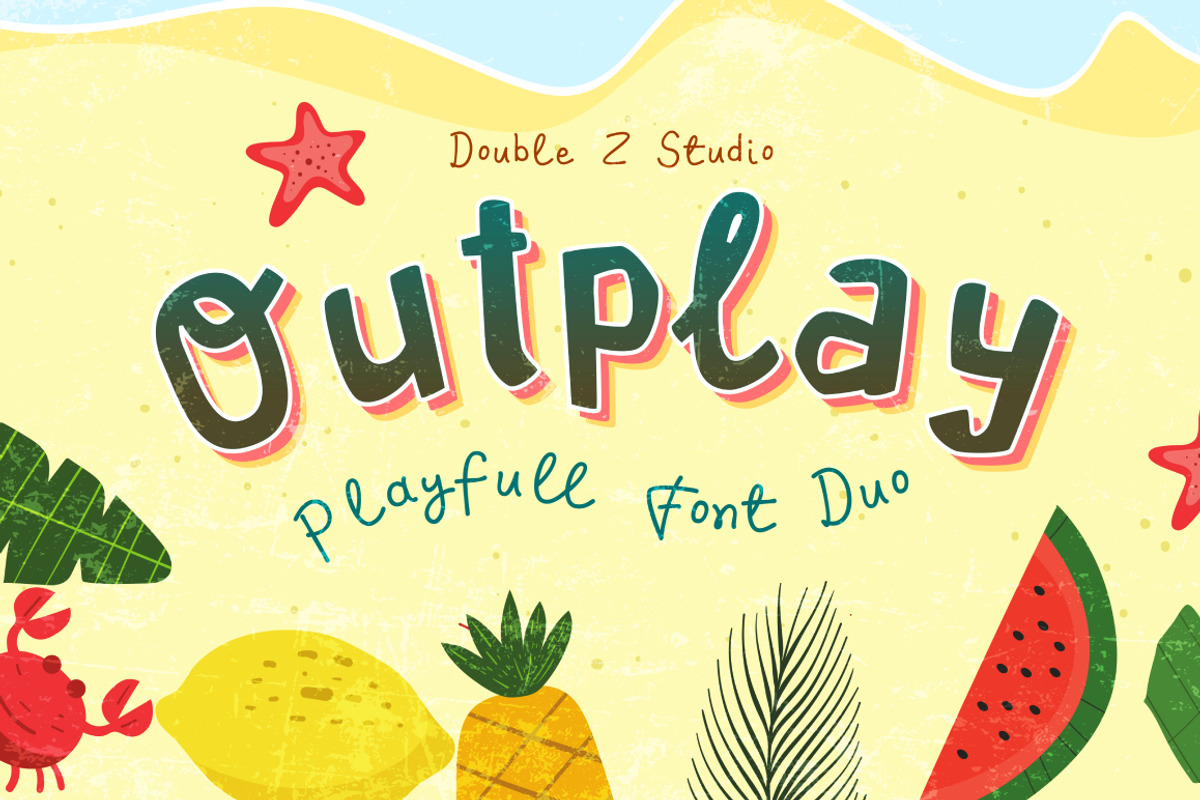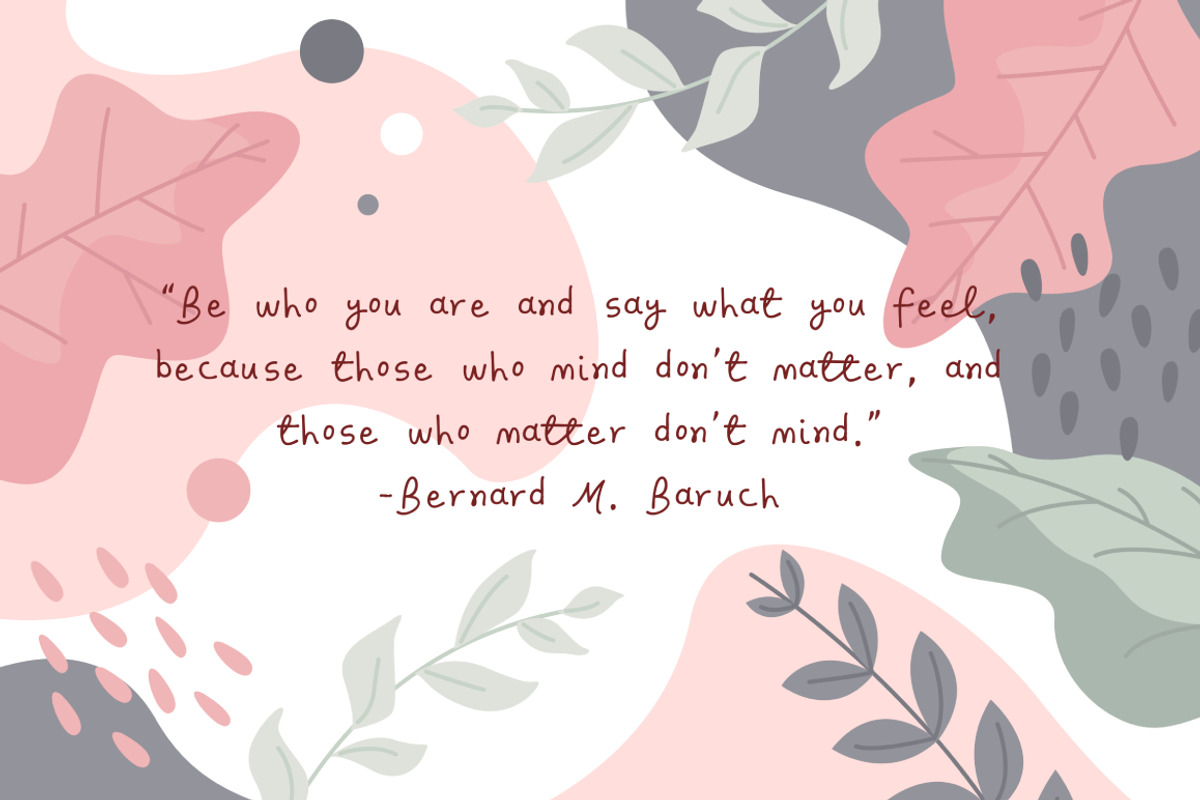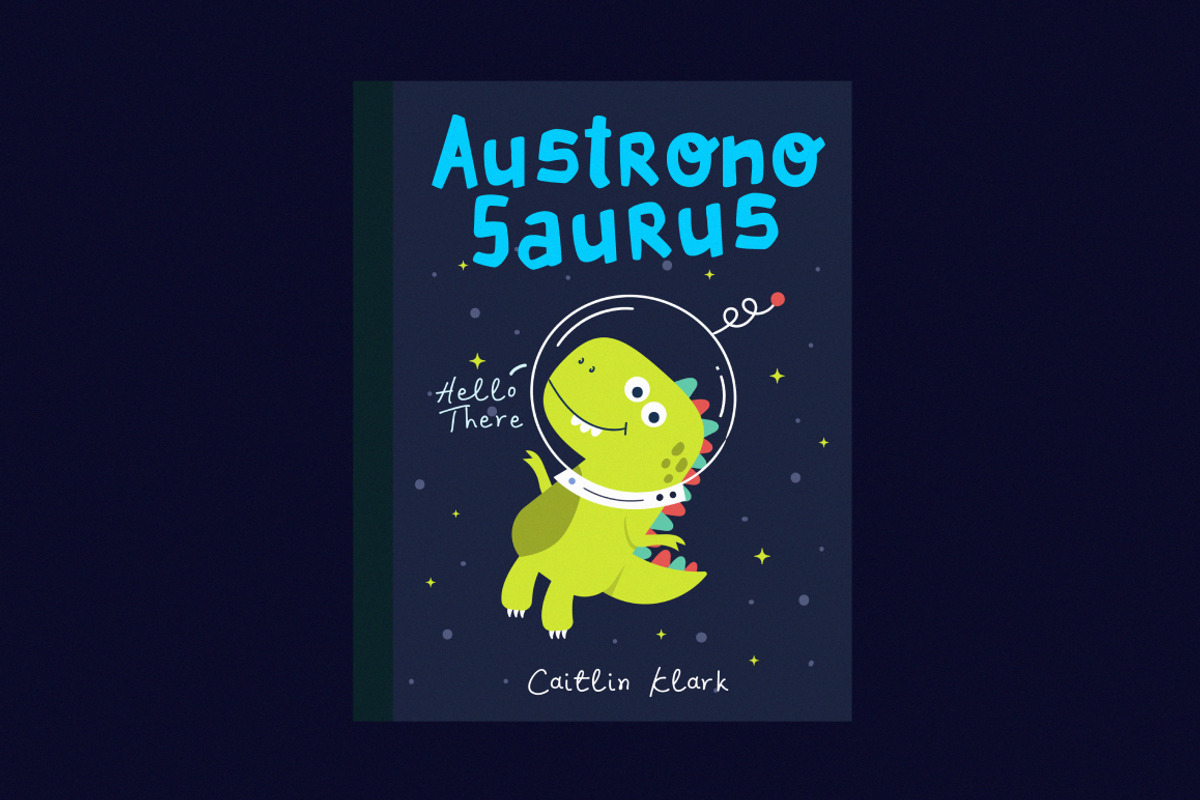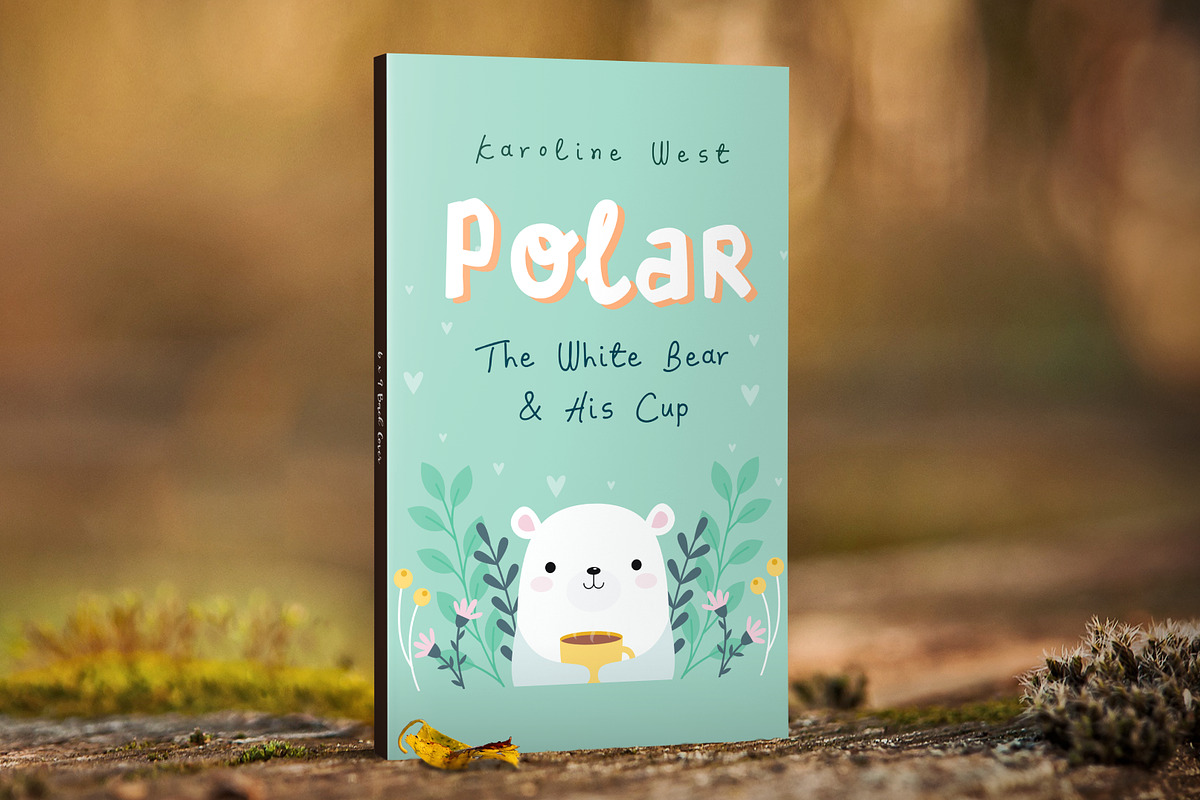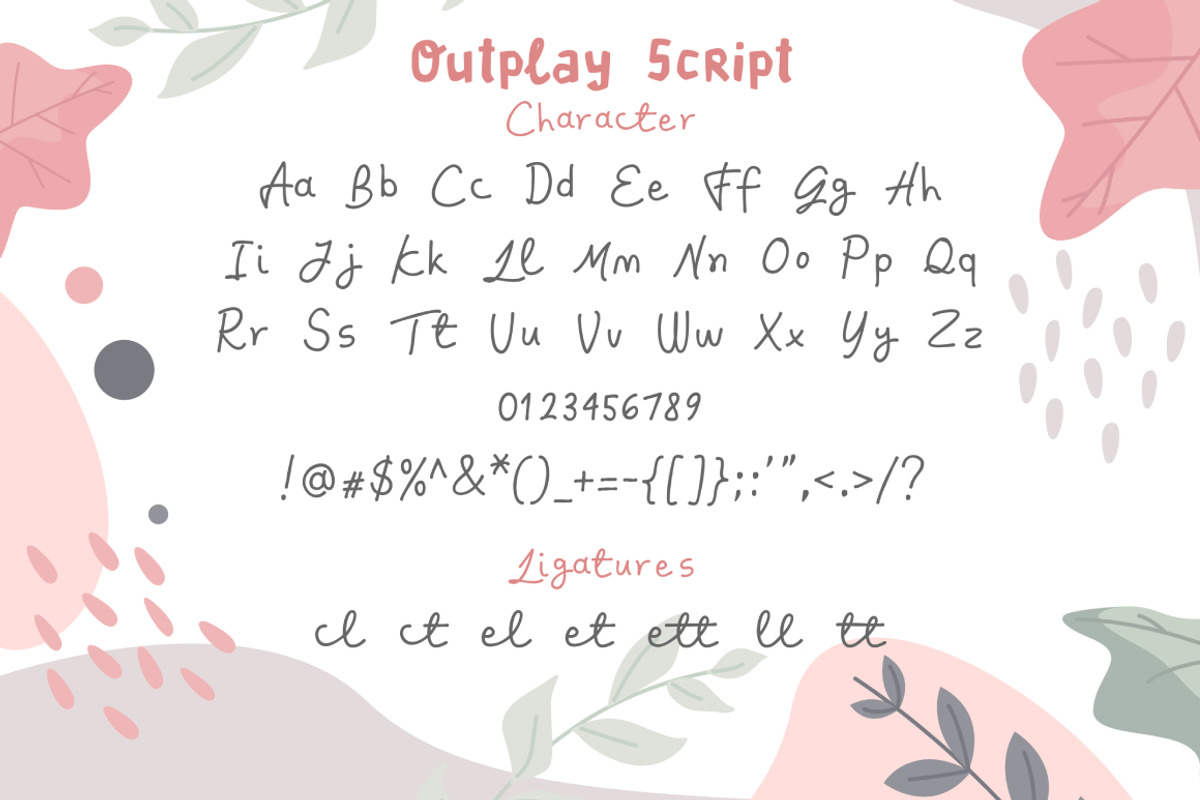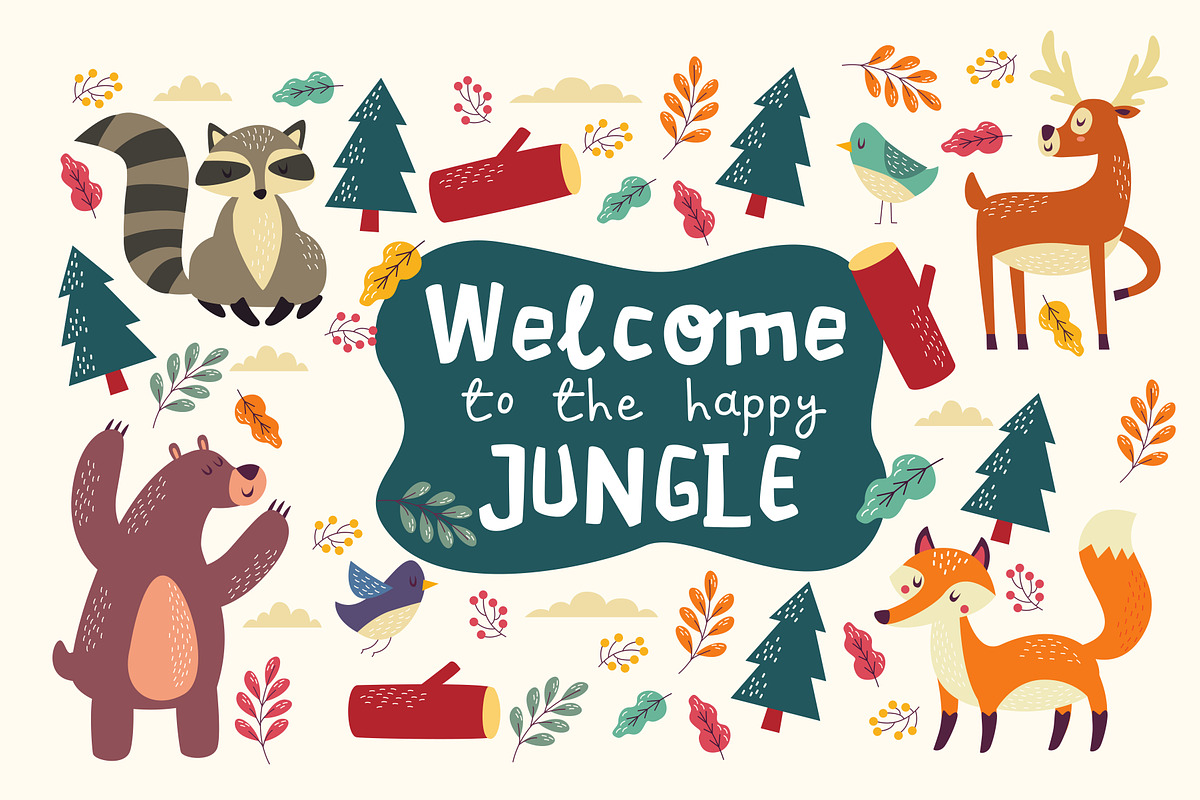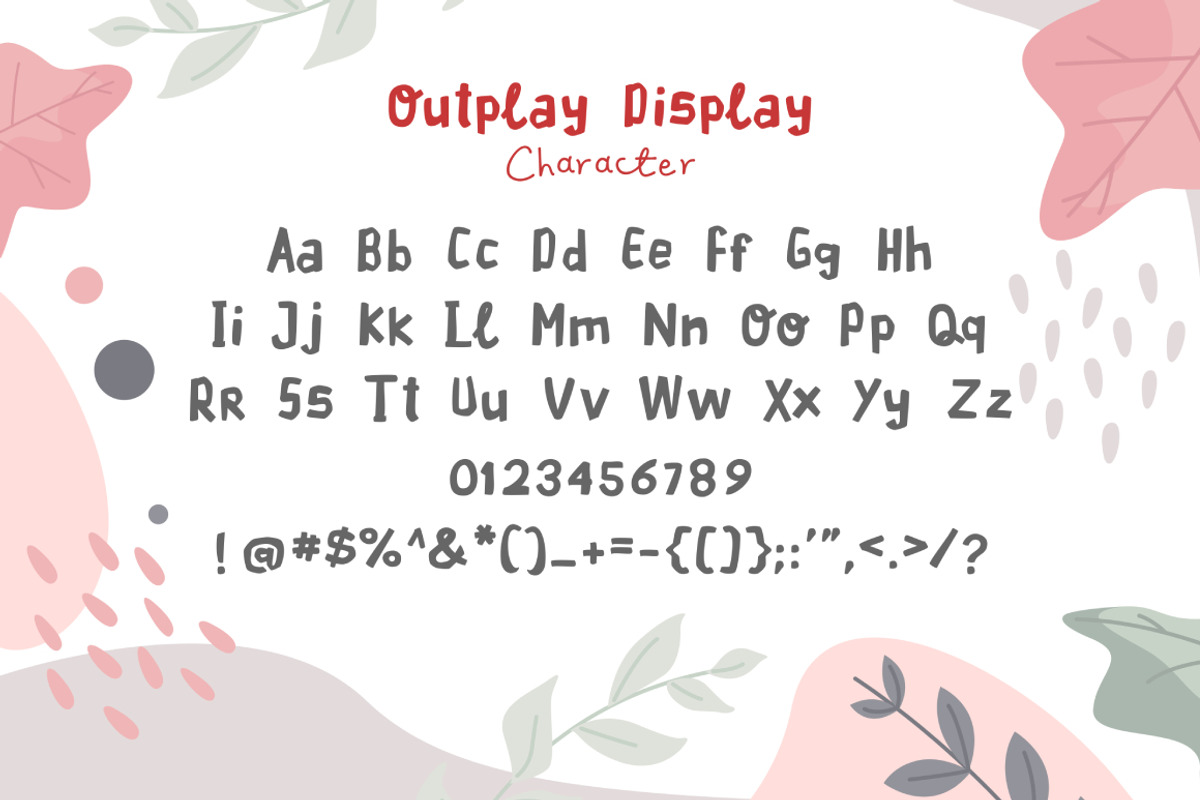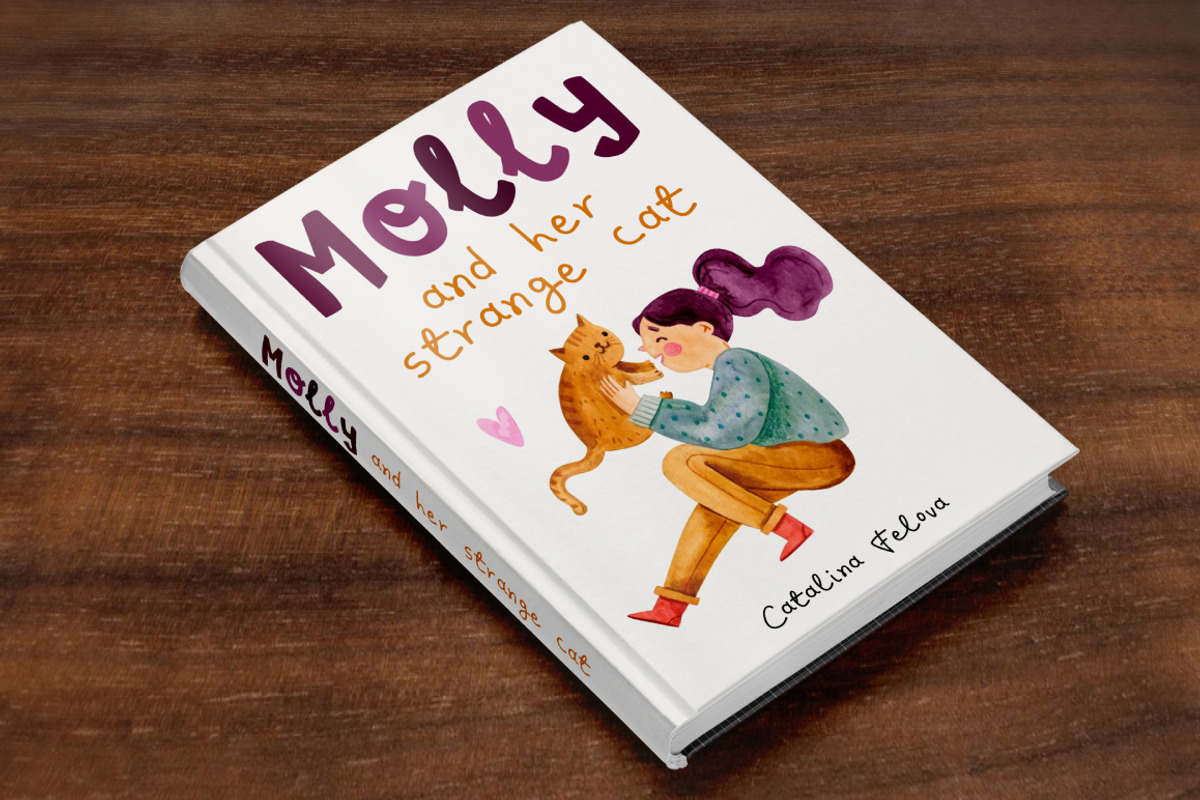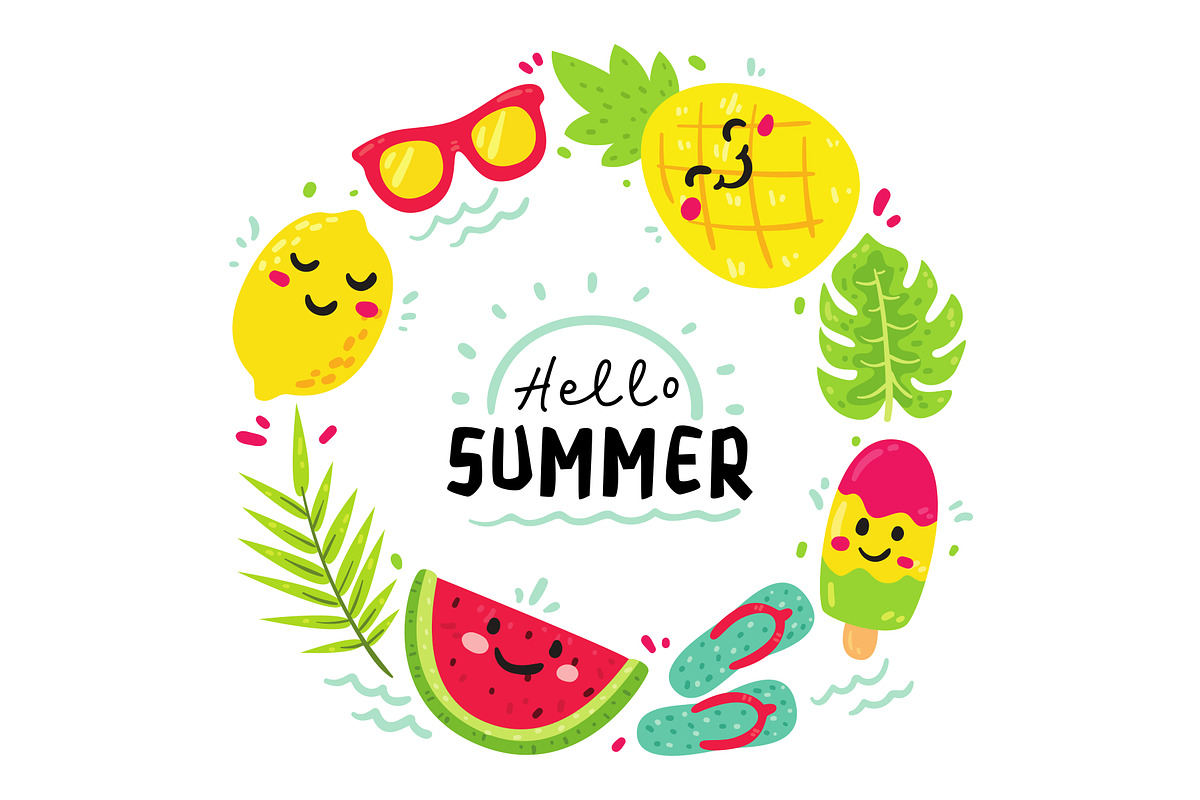
Outplay - Playfull Font Duo
Introducing Outplay Font Duo. It's cheerful and playful at the same time, beautiful, kiddies. Perfect for designing logo, website logo, print ads, book covers, film covers, apparel, cards, logos, posters, etc.
Opentype features gives you more alternatives in designing.